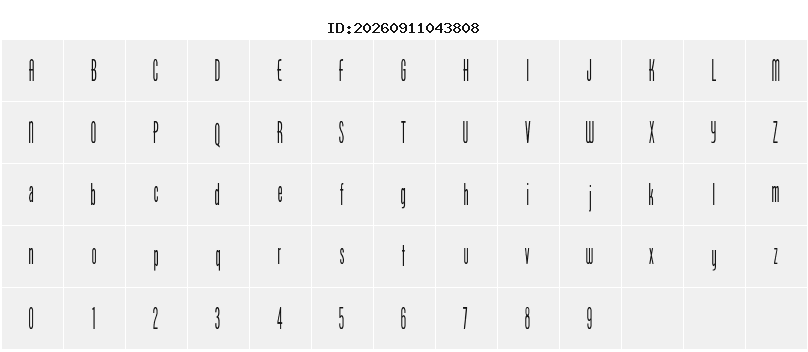
Venus-Normal Preview
• Font Name: Venus-Normal
• Full Font Name: Venus-Normal
• PostScript Name: Venus-Normal
About Venus-Normal.ttf
Venus-Normal.ttf is a modern, elegant sans-serif font designed for ultimate readability and visual harmony. Perfect for branding, headlines, web design, and print materials.